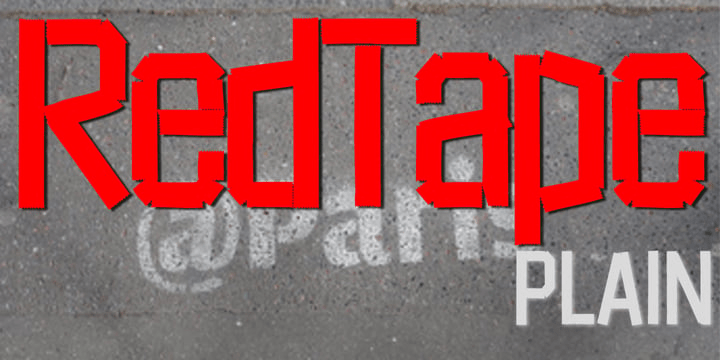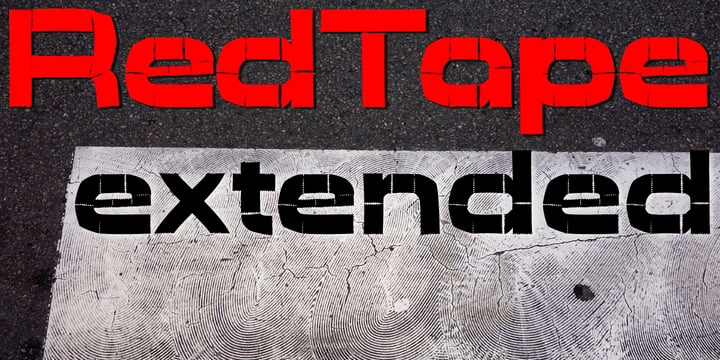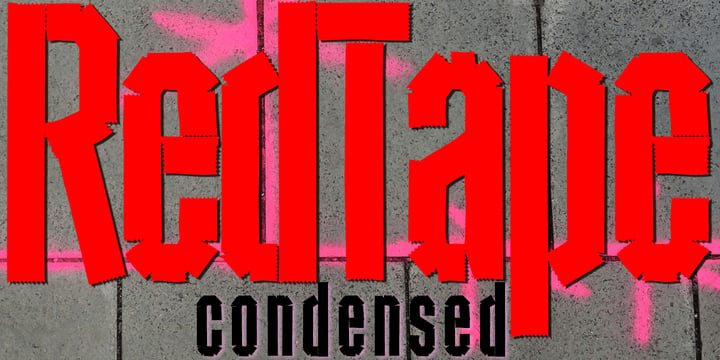
Red Tape
Font Family by Wiescher Design
Red Tape is three fonts that were designed by sticking letters together with red tape.
It makes for a wonderful makeshift set of fonts. And I really enjoyed sticking those letters together. Of course I did it on screen using bits and pieces of scanned red tape.